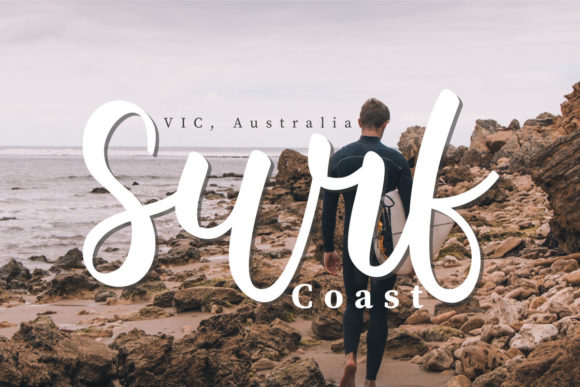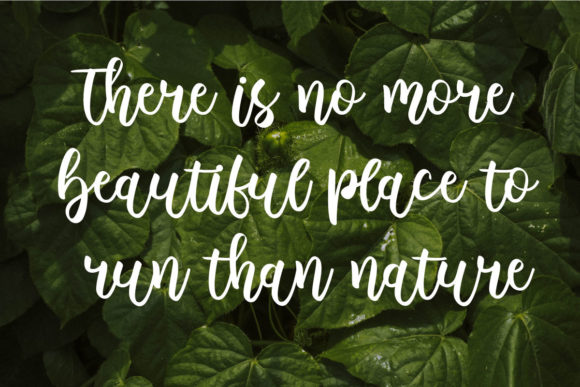
Victoria Font
db-ku.com - Script & Handwritten -- Ambrose is a beautiful and flowing handwritten font. Use it for wall displays, wedding invitations, social media post logos, advertisements, product packaging, product designs, labels, photography, watermarks, invitations, stationery, and any project that requires impressive typography.